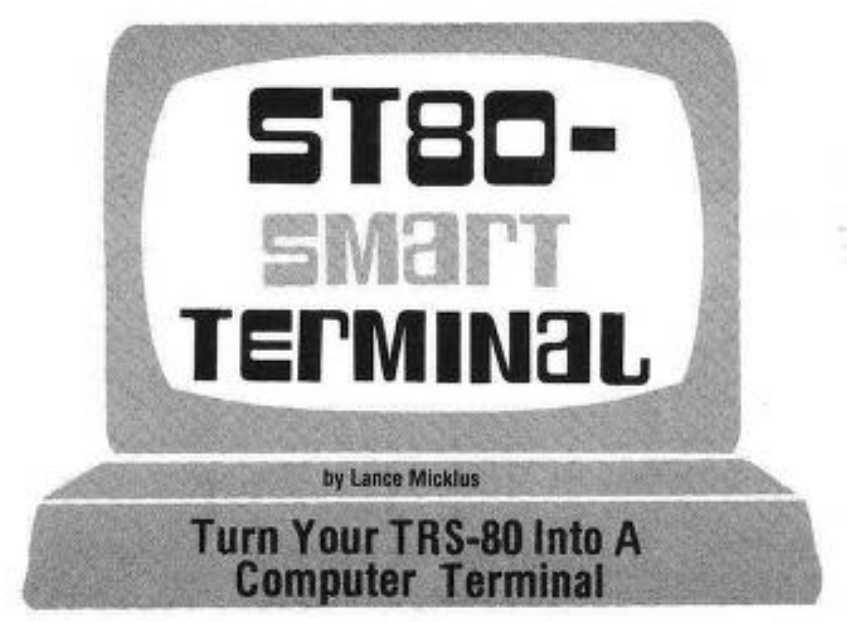
I am very enthusiastic about this font being used in that newsletter published by SoftSide in New Hampshire (U.S.) when computers were in their early years.
The glyph set above shows the alternates (A, C, E, G, L, O, R, S, etc.) and the use of the funky computer contrast and rounded corners, which the face came from a photosetting foundry during the 1970s.